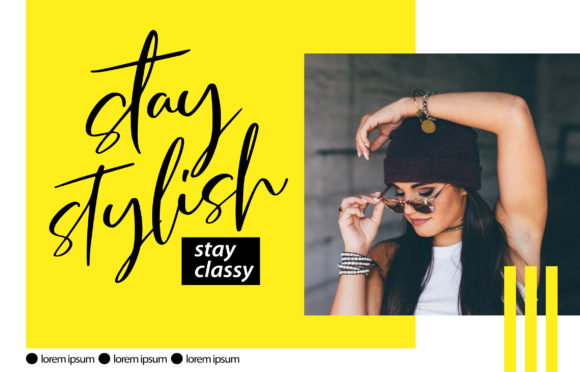
Introduction to Frenchoy Font
Have you ever been working on a creative project, pouring your heart and soul into it, and then that one design element just doesn’t seem to come together? For many designers, this is a familiar frustration. But what if you had access to a high-quality, versatile font that could elevate your designs to the next level? Enter the Frenchoy Font, a sweet and flowing handwritten font that’s sure to captivate your audience.
With its smooth lines, gorgeous glyphs, and stunning alternates, the Frenchoy Font is a design resource that’s hard to resist. And the best part? It’s PUA encoded, making it easy to access all of its amazing features, even on free download versions. Whether you’re working on a project that requires a transparent background or just need a font that can add a touch of elegance to your design, the Frenchoy Font is an invaluable addition to your design arsenal.
Key Features of Frenchoy Font
- High-quality design with a transparent background, ideal for creative projects and designs that require a unique look.
- Features a unique and stylish design, perfect for adding a touch of elegance to any creative project.
- Designed to be highly legible, even at small font sizes, making it an excellent choice for body text and headings.
Honest Review: Frenchoy Font
The Frenchoy Font has a unique, stylish aesthetic that can add a touch of sophistication to any design. I particularly appreciate its transparent background, which allows for seamless integration with other design elements. ✨ Its versatility makes it suitable for a wide range of creative projects, from branding to digital art.
Here are some of the features that I love about the Frenchoy Font:
- Transparent background for easy integration with other design elements
- Unique and stylish aesthetic that adds a touch of sophistication
One thing to note is that the Frenchoy Font may not be suitable for all design projects, particularly those that require a more traditional or conservative look. ⚠️ However, for designers who want to add a touch of creativity and flair to their work, the Frenchoy Font is an excellent choice.
Overall, I’m thoroughly impressed with the Frenchoy Font. Its high-quality design, versatility, and free download make it a valuable addition to any designer’s toolkit. If you’re looking for a unique and stylish font to elevate your creative projects, the Frenchoy Font is definitely worth checking out.